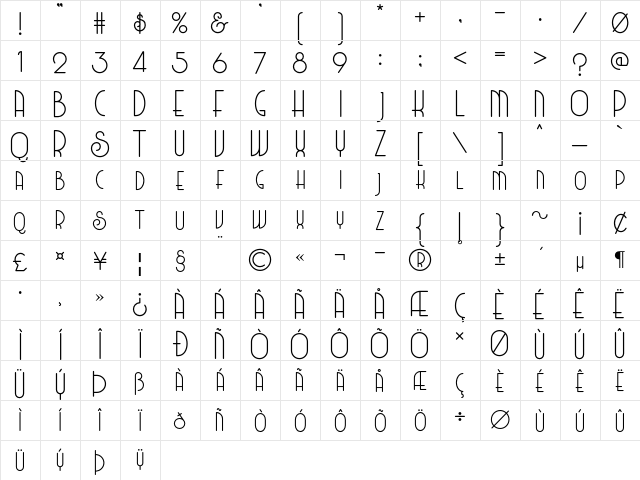
Baltimore Small Cap Regular
| Designer | Dicky Syafaat |
Design Context for Baltimore Small Cap Typeface
Baltimore Small Cap is a composed and adaptable typeface that performs quietly and consistently across a wide range of design contexts.
Pro Tip: Use Baltimore Small Cap in both headline and body roles to test its range before committing to a single application.